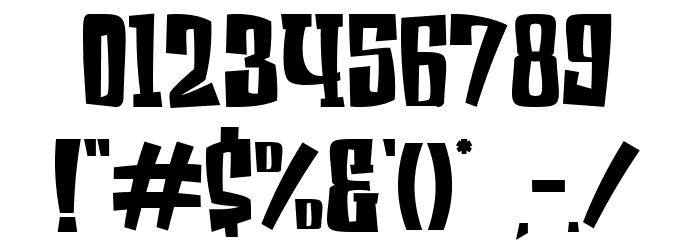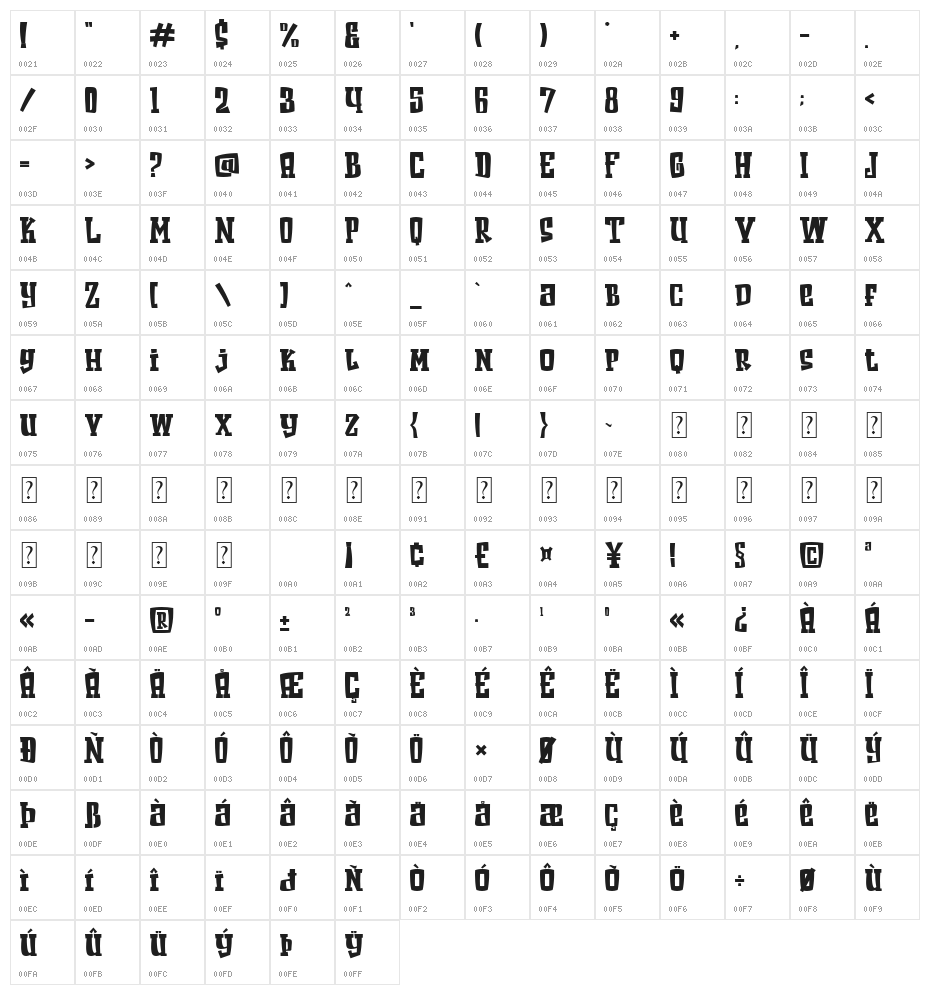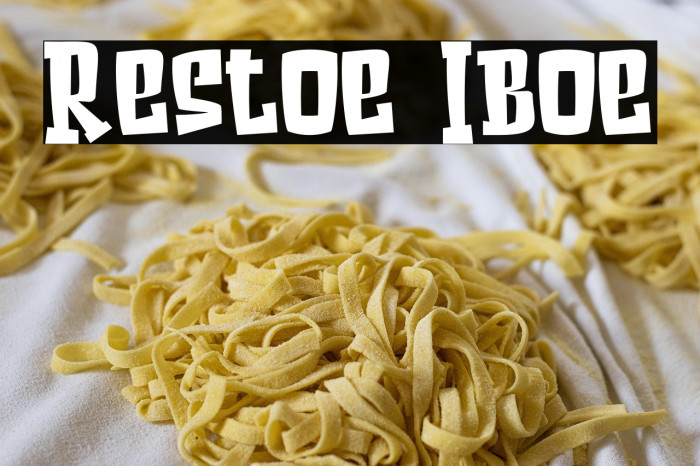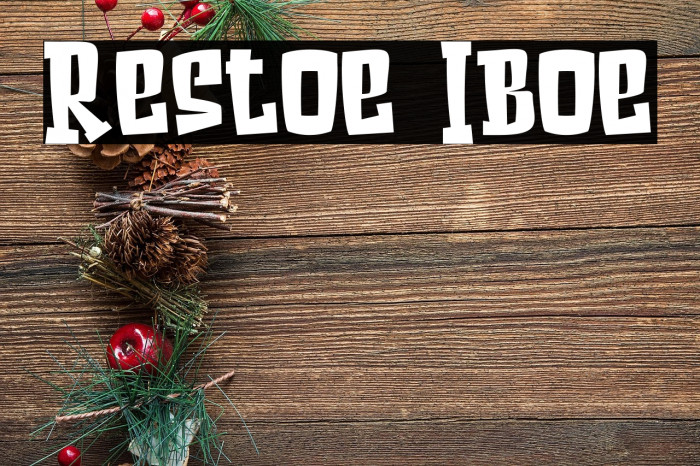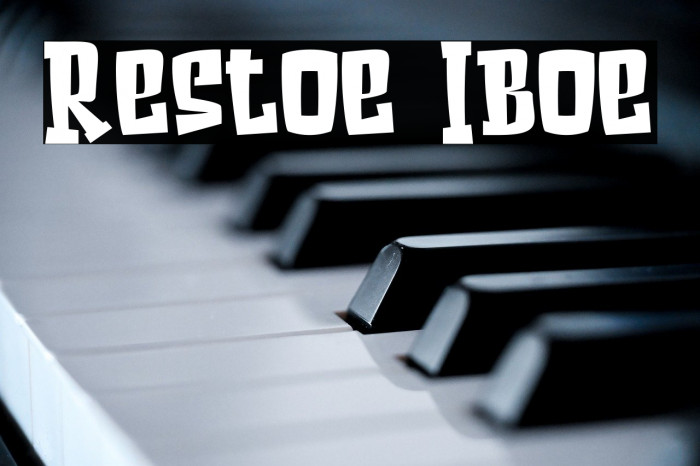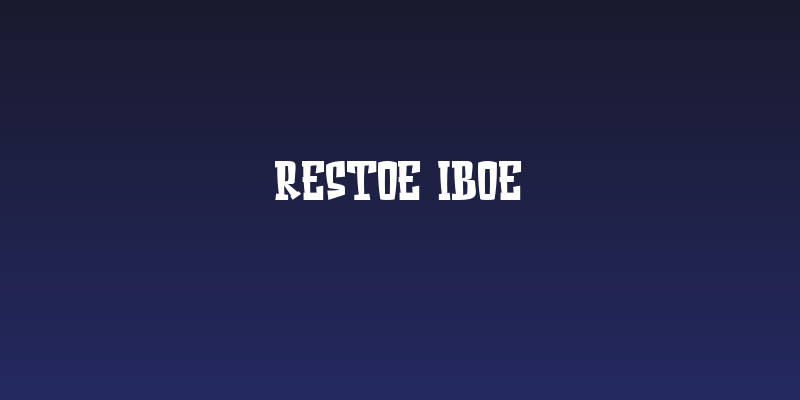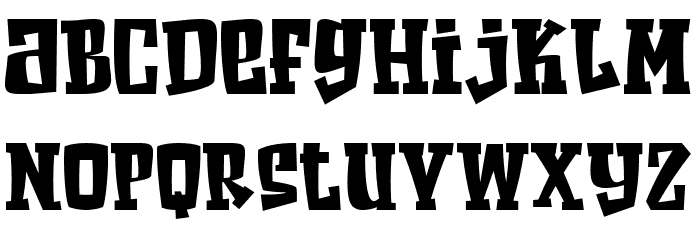
Restoe Iboe Font
Restoe Iboe Description
This font features a bold and dynamic design with a strong presence. The characters have a distinct, angular style with sharp edges and a slightly condensed form. The uppercase and lowercase letters maintain a consistent weight, providing a cohesive look. The numbers and special characters follow the same bold aesthetic, making them stand out. This font is ideal for creating eye-catching headlines or logos that require a strong visual impact. Its unique style is reminiscent of vintage or retro designs, yet it maintains a modern appeal.
Overall StyleVintage, Modern
Proposed ProjectsIdeal for branding, poster design, album covers, and any project needing a bold statement.